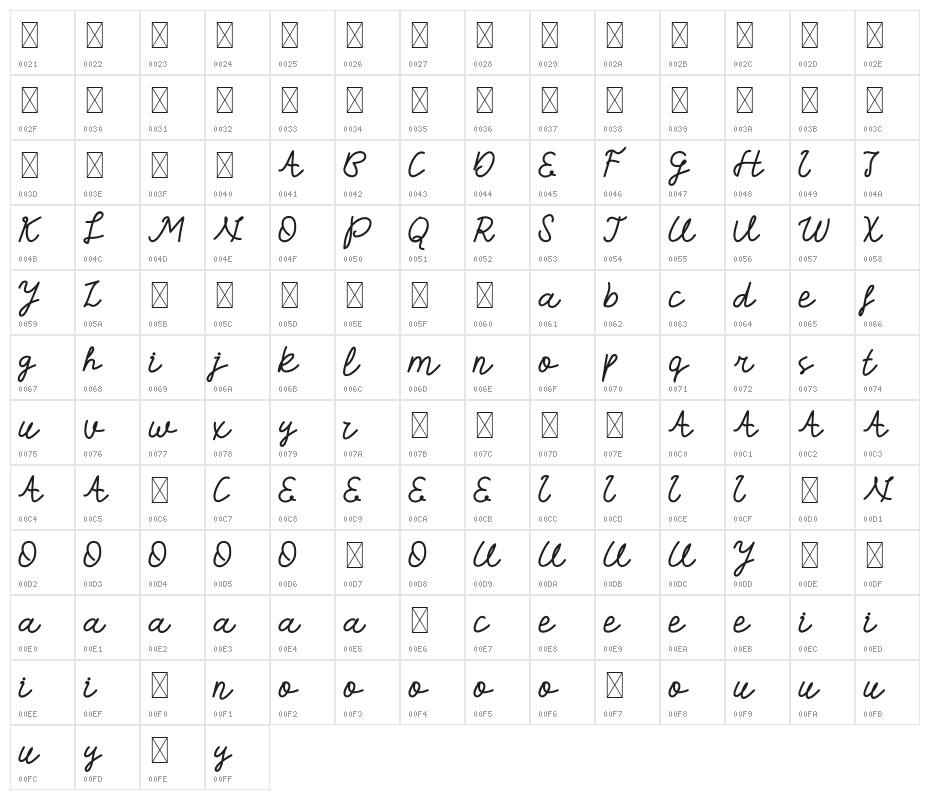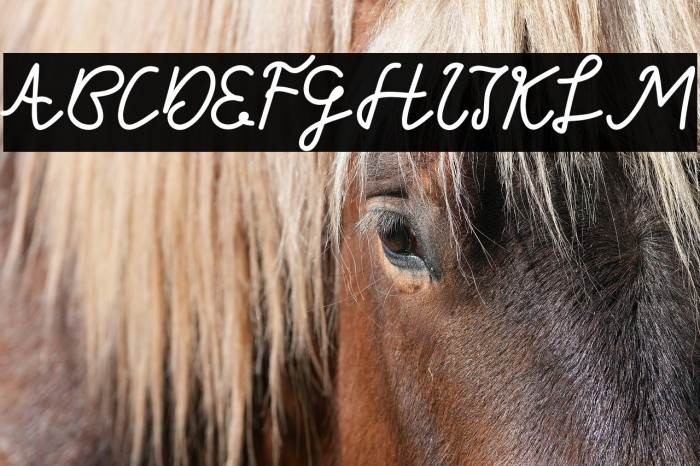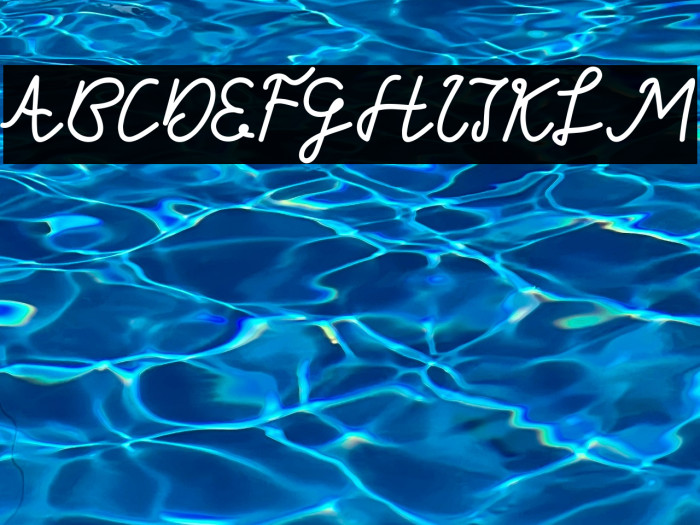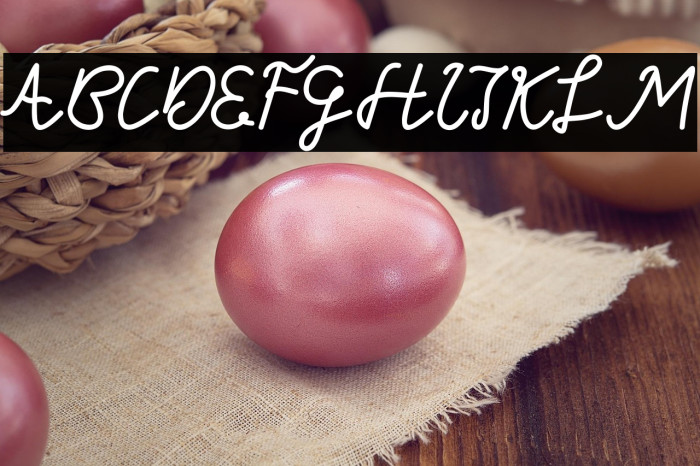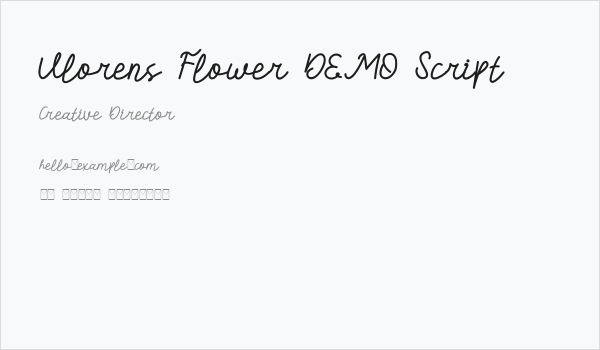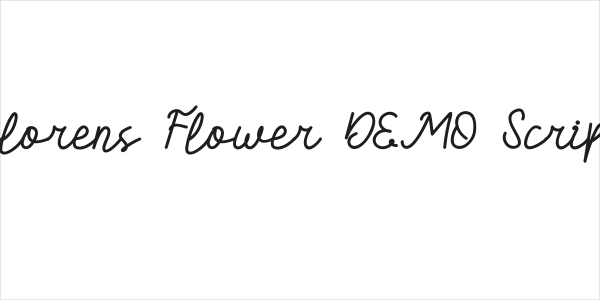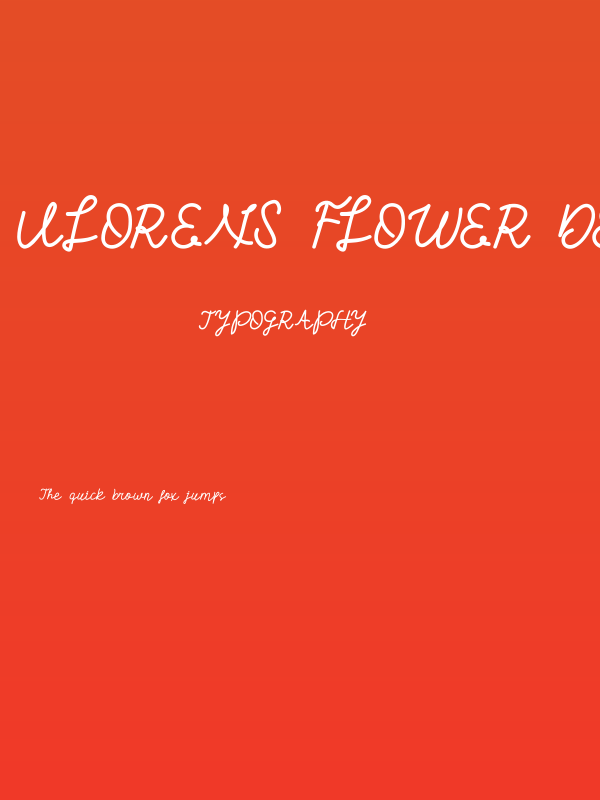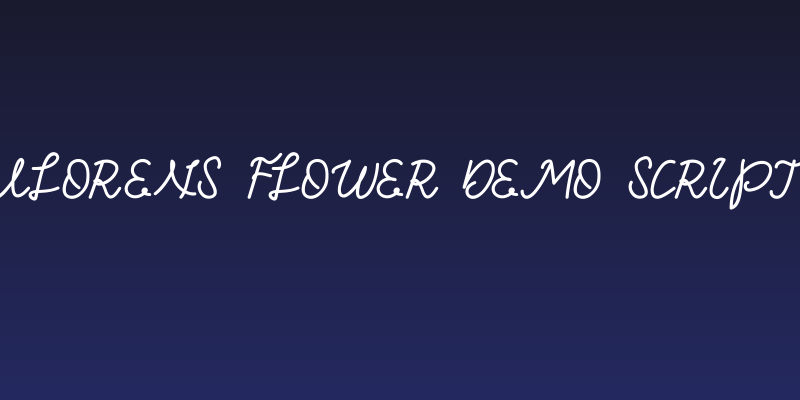
Vlorens Flower DEMO Script Font
Vlorens Flower DEMO Script Description
This elegant script font features fluid, connected strokes that mimic the natural flow of handwriting. The uppercase letters are slightly more ornate, with graceful loops and curves, while the lowercase letters maintain a consistent, smooth rhythm. The overall appearance is both sophisticated and approachable, making it ideal for projects that require a personal touch. The font's design is well-suited for invitations, greeting cards, and branding materials that aim to convey elegance and warmth.